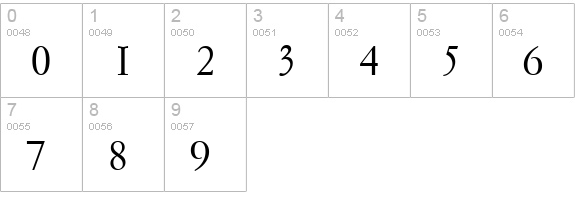
GarfeldSerial-Light is a refined, elegant variant in the GarfeldSerial typeface family \xE2\x80\x94 well suited to elegant body text, refined sub-headings, and luxury branding.
GarfeldSerial-Light font is a sleek and modern typeface that exudes elegance and sophistication. With its clean lines and balanced proportions, this font is perfect for a wide range of design projects, from branding to editorial design. The light weight of the font gives it a delicate and airy feel, making it ideal for creating a sense of refinement and subtlety in your designs. What sets GarfeldSerial-Light font apart is its versatility and readability, making it a great choice for both display and body text. Whether you're designing a logo, crafting a magazine layout, or creating a website, this font will bring a touch of sophistication to your projects. Best of all, GarfeldSerial-Light font is available for free download at FontsMarket.com. So go ahead and elevate your designs with this elegant and timeless typeface today!